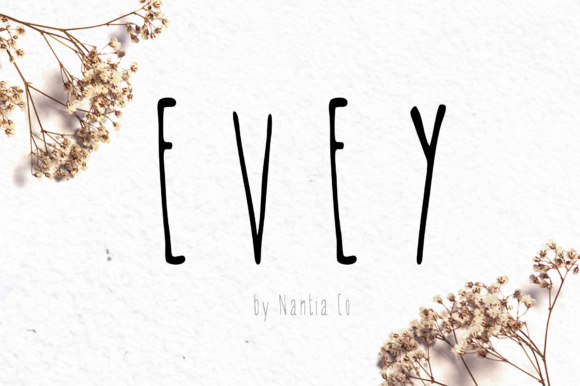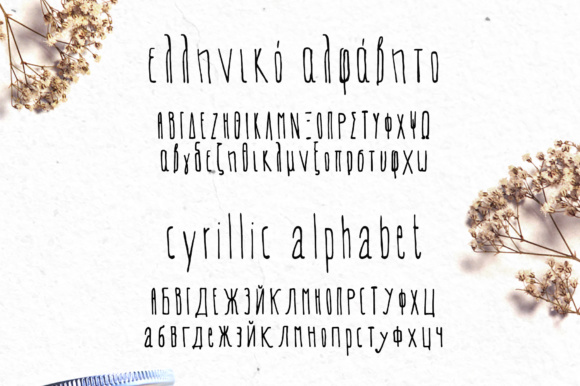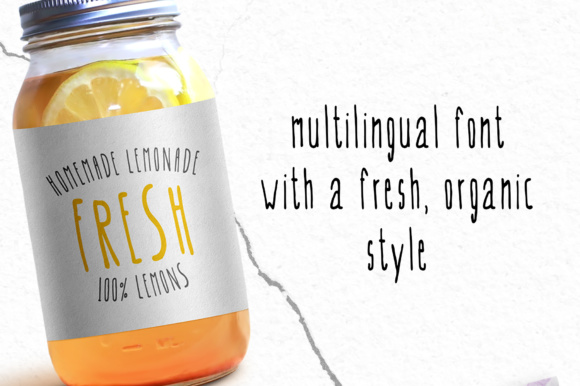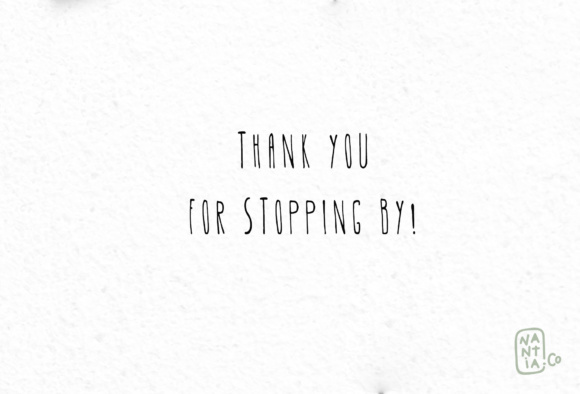
Evey Font
About Evey Font
Evey is a crafty typeface with an elegant style. Because of its unique style, Evey is the perfect design tool for natural organic product packaging and branding.
In addition, Evey can make a cute alternative wedding font. Furthermore, you can pair this wedding typography with handcrafted/recycled papers for an amazing wedding invitation!